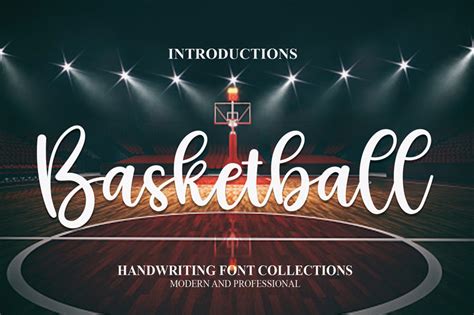
Basketball Fonts On DaFont: Style Your Designs
Basketball Fonts on DaFont: Style Your Designs
Hey basketball fanatics and design lovers! Are you looking for that perfect font to slam dunk your next project? Whether you’re creating a team logo, a sports poster, or just want to add some serious athletic flair to your social media posts, finding the right basketball font is crucial. And where better to start your search than DaFont? This massive library is packed with thousands of free fonts, and yes, it has a whole slew of options that scream basketball. We’re talking bold, energetic, and sometimes even a little gritty – fonts that capture the spirit of the game. So, let’s dive into the world of basketball fonts on DaFont and discover how you can make your designs pop like a three-pointer at the buzzer.
Why Basketball Fonts Matter
Alright guys, let’s break down why choosing the right basketball font can make or break your design. Think about it – a basketball game isn’t just about the action on the court; it’s about the energy, the passion, the grit . Your font needs to convey that same feeling. A sleek, modern font might be great for a tech company, but for a basketball team? You probably want something with more power, more presence. Maybe it’s a font that looks like it’s been hand-painted by a seasoned coach, or perhaps something that evokes the speed and dynamic movement of a fast break. The visual language of basketball is distinct, and the typography you choose is a huge part of that. It’s not just about readability; it’s about attitude . A bold, blocky font can scream ‘toughness,’ while a more italicized, dynamic font might suggest ‘speed’ and ‘agility.’ When you’re browsing basketball fonts on DaFont , keep in mind the specific vibe you want to achieve. Are you going for a classic, old-school feel like the Lakers of the 80s, or a modern, aggressive look for a new e-sports league? The font is your silent teammate, communicating those core brand values before anyone even reads a word.
Finding Your Perfect Font on DaFont
So, how do you actually navigate DaFont to find these gems? It’s easier than you think! DaFont organizes its fonts into categories, which is super helpful. While there isn’t a specific “Basketball” category (bummer, I know!), we can get pretty close. My go-to strategy involves exploring categories like “Slab Serif” , “Script” (for a more handwritten, personal feel), “Distorted” or “Display” for those attention-grabbing styles. You’ll also want to keep an eye out for fonts that have a “Sports” or “Gothic” vibe, as these often have the boldness and angularity we associate with athletic branding. Bold fonts are your best friend here. Look for options that are thick, impactful, and can stand up to a lot of visual noise. Think about the textures you see in sports – the scuff marks on a basketball, the lines on a court, the worn leather. Fonts that mimic these textures or have a slightly distressed look can add a fantastic layer of authenticity. Don’t be afraid to experiment! Download a few options that catch your eye and try them out. What looks good on DaFont’s preview might look even better (or worse!) in your actual design. Remember, the goal is to find a font that resonates with the energy of basketball and elevates your project from amateur to MVP status.
Types of Basketball Fonts You’ll Find
When you’re scrolling through basketball fonts on DaFont , you’ll notice a few recurring themes and styles. One of the most popular is the bold, blocky collegiate font . These often have sharp edges and a strong, imposing presence, reminiscent of university sports teams. They’re perfect for conveying a sense of tradition, strength, and school spirit. Then you have the distressed or stencil fonts . These fonts look like they’ve been spray-painted onto a surface or have seen a few too many rough games. They add a raw, gritty, and authentic feel, which is awesome for capturing the ‘hustle’ aspect of basketball. Think worn-out gym floors or faded team jerseys. Script fonts also have their place, especially for adding a touch of flair or a signature style. You might see elegant, sweeping scripts that look like a player’s autograph, or more casual, brush-stroke scripts that give a handmade, energetic vibe. These are great for team names or player jerseys where you want a personalized touch. Finally, don’t overlook the athletic display fonts . These are often custom-designed to look dynamic and sporty, perhaps with sharp angles, extended serifs, or italicized forms that suggest speed and movement. They’re designed to grab attention and communicate energy. When you’re browsing basketball fonts on DaFont , think about which of these styles best fits the personality of your project. Do you need something that shouts ‘championship’ or whispers ‘underdog’s journey’? Each font style carries its own narrative, so choose wisely!
Using Fonts for Team Names and Logos
Okay, let’s talk specifics: using these awesome finds for team names and logos . This is where the magic really happens! For a team name, you typically want something highly readable but also packed with personality. If you’re going for a strong, established team vibe, a bold slab serif or a blocky sans-serif font from DaFont can be killer. Think about how teams like the Los Angeles Lakers or the Chicago Bulls present their names – they’re clear, strong, and iconic. You can achieve a similar effect by pairing a solid font with a complementary outline or shadow effect. For logos, versatility is key. Your font needs to work well at different sizes, from a small icon on a website to a large banner at a stadium. This is where exploring athletic display fonts or even some of the more unique script fonts can pay off. Imagine a stylized initial for a team, like a ‘B’ for the Bulls, designed with sharp angles and aggressive lines. Or perhaps a classic team name written in a flowing script that looks like a legendary player’s signature. When searching basketball fonts on DaFont , test them in different contexts. How does it look in all caps? How about title case? Does it look good with numbers (think jersey numbers!)? Remember, a good logo font is memorable and unique. You might even consider combining two fonts – a bold one for the main team name and a simpler, complementary font for a tagline or city name. The key is to ensure legibility and impact. Don’t be afraid to tweak letter spacing (kerning) or adjust sizes to make it perfect . Your team’s identity is on the line, so make your font choices count!
Basketball Font Keywords for DaFont
Alright, guys, let’s get tactical with the search terms. When you’re diving into DaFont, simply typing in “basketball” might give you some results, but to really unlock the treasure chest, you need to get a bit more creative. Think about the essence of the game. Here are some keywords that have worked wonders for me when hunting for basketball fonts on DaFont :
• “Sports” : This is a broad but essential category. Many fonts designed for general sports use have that perfect athletic feel.
• “Athletic” : Similar to sports, this keyword often brings up fonts with clean lines, bold weights, and energetic designs.
• “Slab Serif” : As mentioned, these blocky, sturdy fonts are fantastic for that collegiate or powerful look.
• “Distressed” / “Grunge” : If you want that worn-in, street-ball vibe, these keywords are your best bet. They give an instant sense of authenticity and grit.
• “Stencil” : Perfect for that military-inspired, tough-as-nails look that often shows up in sports branding.
• “Brush” / “Handwritten” : For a more personal, dynamic, or signature feel, these script-like fonts can be amazing.
• “Display” / “Decorative” : These are catch-all terms for fonts that are designed to make a statement and aren’t necessarily for long blocks of text. Many unique basketball fonts fall into these categories.
• “Block” / “Heavy” / “Bold” : Simple, direct terms that will help you find fonts with serious visual weight.
• “Action” / “Dynamic” : While less common as direct categories, sometimes designers tag their fonts with words implying movement, which can lead to cool discoveries.
Don’t be shy about mixing and matching these terms, or trying variations. Sometimes adding “_” or “-” can also help filter results if a designer has used them in the font name. Happy hunting, and may your font search be a slam dunk!
Tips for Using Basketball Fonts Effectively
Now that you’ve hopefully found some killer basketball fonts on DaFont , let’s talk about how to use them without messing up your design. First off, readability is king , especially for team names, slogans, or any text that needs to be understood quickly. A super stylized font might look cool, but if people can’t read “Eagles” from a distance, it’s not doing its job. Test your chosen font in different sizes and contexts. A font that’s legible on a small social media graphic might become a jumbled mess on a giant banner. Consistency is also key . If you’re designing for a team or event, stick to one or two complementary fonts. Too many different styles will make your design look messy and unprofessional. Think about pairing a bold display font for the main title with a cleaner sans-serif for supporting text. Consider the background . Will your font stand out? Sometimes adding a subtle drop shadow, an outline, or ensuring good contrast between the text color and background color is all you need. Don’t forget about kerning and tracking . Adjusting the space between letters (kerning) and the overall space between characters (tracking) can make a huge difference in how polished your text looks. A font that seems a bit spaced out or cramped can be fixed with a few tweaks. Finally, think about the medium . A font that works perfectly for a print poster might need adjustment for a web banner or a video intro. Always preview your design on the intended platform. By keeping these tips in mind, you’ll be sure to make your basketball font choices shine, just like a perfectly executed crossover!
Beyond DaFont: Other Resources
While DaFont is an absolute goldmine for free basketball fonts , it’s worth knowing that there are other awesome places to look, especially if you need something super unique or commercial-ready. Sometimes, you might not find exactly what you’re looking for, or maybe you need a font that comes with a commercial license for a client project. Websites like Google Fonts offer a huge selection of free, high-quality fonts that are also commercially licensed, though they might be more geared towards general use than specific sports themes. For more specialized or premium options, check out Font Squirrel , which curates free fonts for commercial use, and MyFonts or Creative Market , where you can find a vast array of paid fonts, often with incredible designs created by independent typographers. These paid fonts can offer that extra professional polish and unique flair that might be worth the investment. Many designers on these platforms create amazing sports-themed font families that include different weights, italics, and even dingbats (little graphic symbols) related to the sport. So, while DaFont is a fantastic starting point for free basketball fonts , remember to explore these other avenues to broaden your design horizons and find that truly perfect typeface for your next big project. You never know where your next championship-level font inspiration will come from!
Conclusion: Score Big with Typography
So there you have it, guys! We’ve journeyed through the world of basketball fonts on DaFont , explored the types of styles you can find, and even shared some tips on how to use them like a pro. Finding the right font is like finding the right player for your team – it adds power, personality, and can totally change the game. Whether you’re leaning towards a bold collegiate look , a gritty stencil design , or a dynamic athletic display font , DaFont has got your back. Remember to use those strategic keywords we talked about, test your fonts in different scenarios, and prioritize readability and consistency. Typography is a powerful tool in your design arsenal, and by choosing basketball fonts that capture the spirit and energy of the game, you’re setting yourself up for a guaranteed win. Now go forth, experiment, and make your next basketball-themed project a certified slam dunk! Happy designing!